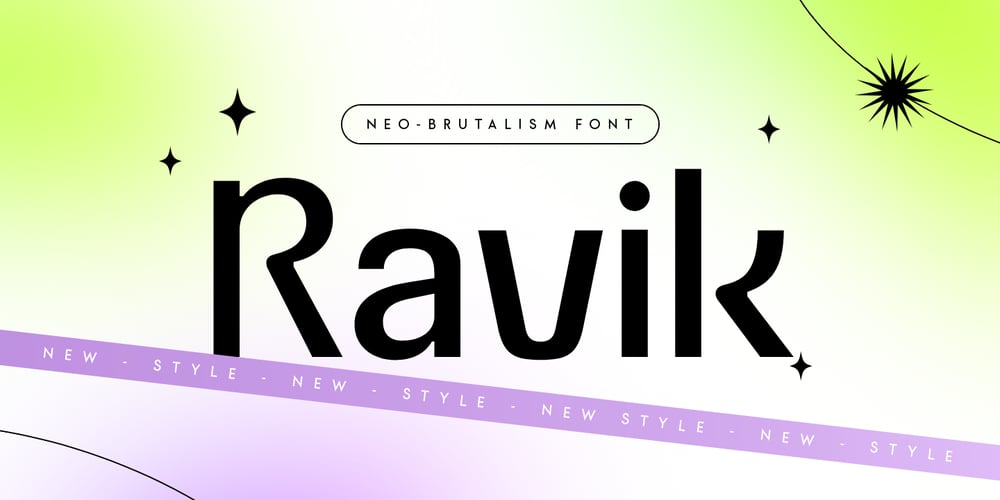
Ravik Font Family was designed by Zamroni Hamzah and published by Sensatype Studio. Ravik contains 1 styles and family package options. Ravik, Neo-Brutalism Font is a A Neo Brutalism Font with modern and stylish corporate type and inside have a minimalist, unique style and iconic sans serif, font that you can combine to get any variations and unique shapes easily just in seconds. It is a sans serif font with minimalist style that perfect for branding projects, logo, poster designs, social media posts, advertisements, product packaging, product designs, label, photography, watermark, invitation, stationery, and any projects, it makes with a high level of legibility.What’s Included: Ravik font Uppercase & Lowercase Characters Character set A-Z Numerals & Punctuation Accented Characters (West Europe) Works on PC & Mac Recommended using Adobe Illustrator or Adobe Photoshop. Wish you enjoy our font. ๐